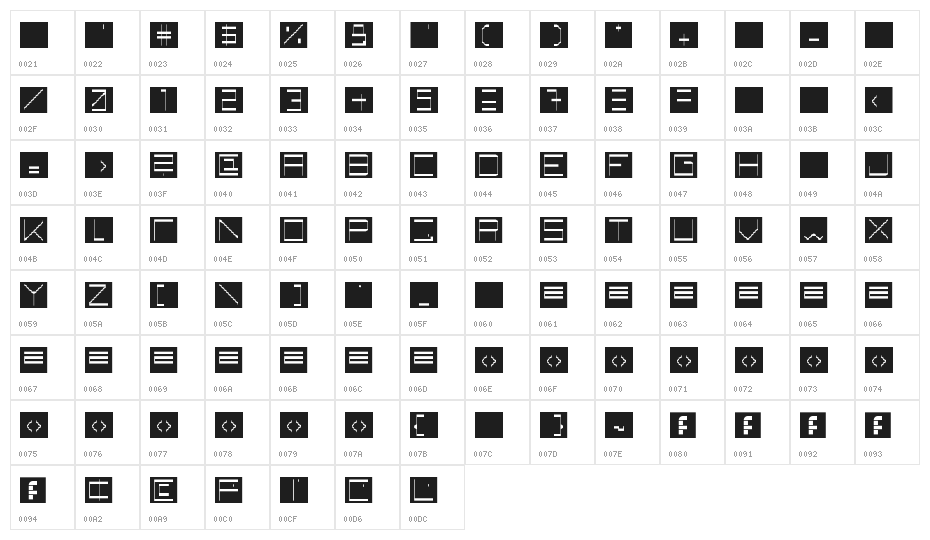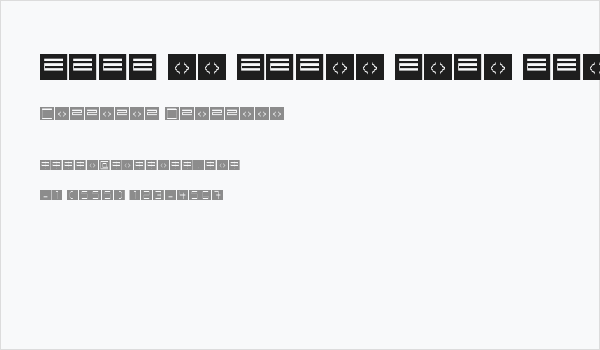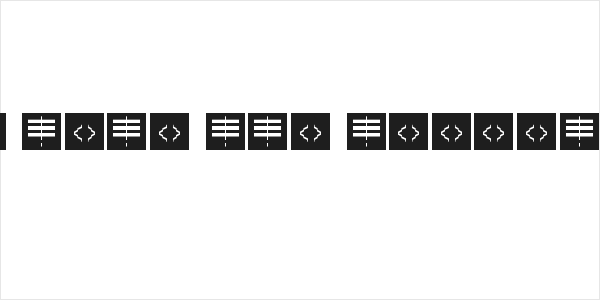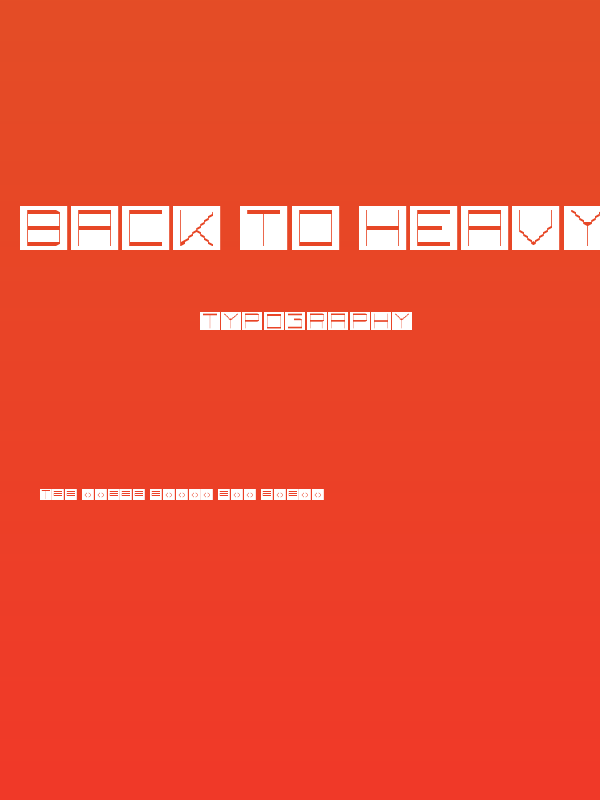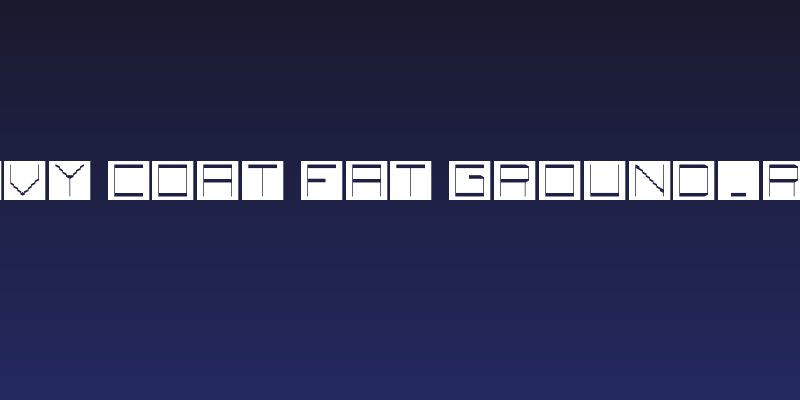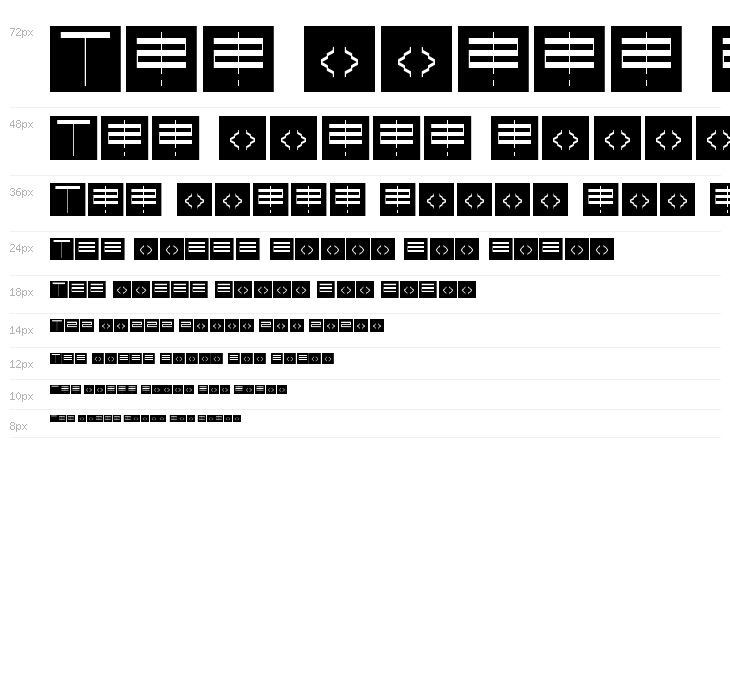
back to heavy coat fat ground_raw Regular Font
back to heavy coat fat ground_raw Regular Description
This font features a bold, geometric design with a strong emphasis on square and rectangular shapes. Each character is enclosed within a block, creating a uniform and structured appearance. The font has a futuristic and digital aesthetic, reminiscent of old-school video game graphics or digital displays. The uppercase letters are distinct, with sharp angles and clean lines, while the numbers and special characters maintain the same blocky style, ensuring consistency across all elements. The font's unique style makes it stand out, ideal for projects that require a modern, tech-inspired look.
| Proposed Projects | Ideal for tech-themed designs, video game graphics, digital displays, and modern branding projects. |